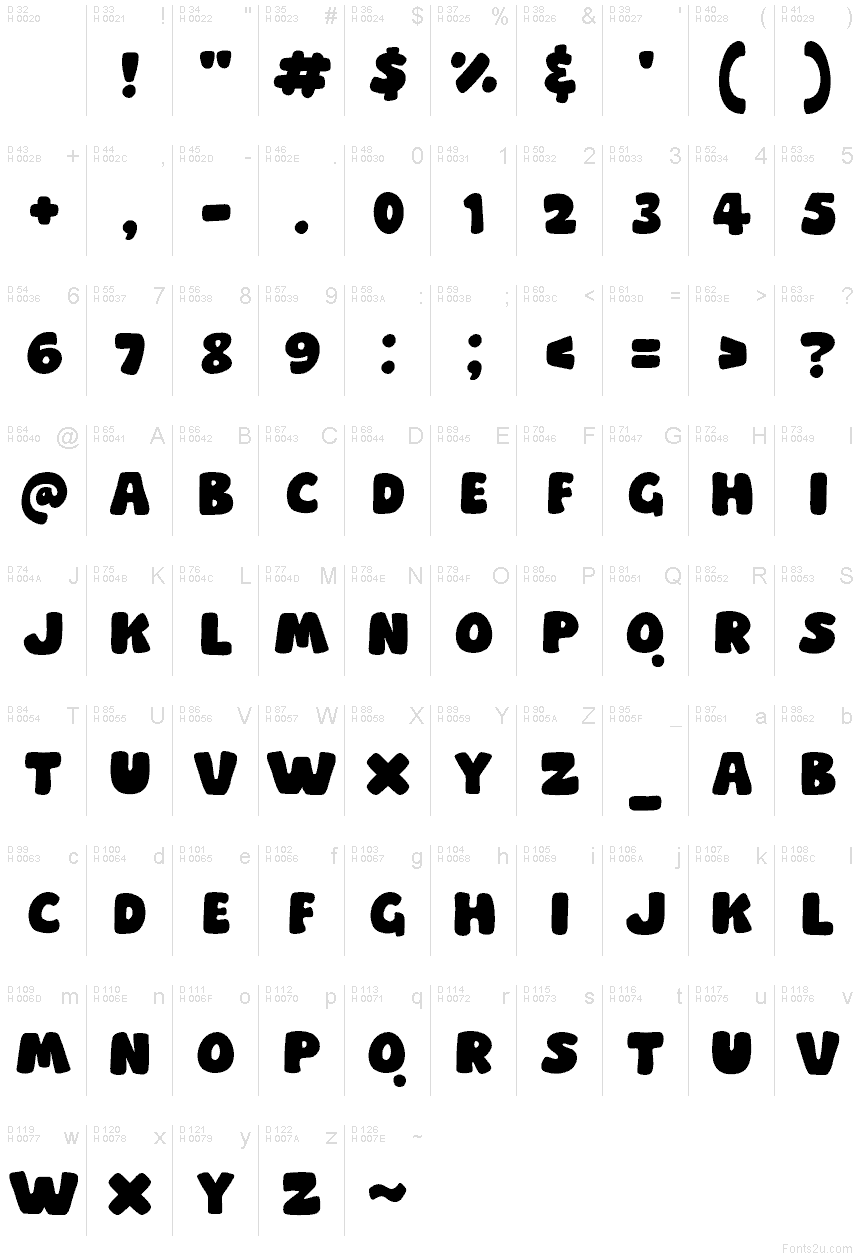
Cash Paper
Cash Paper font by MJType is a free cartoon display typeface with bold, bubble-like letters that look like they’ve been cut from thick, inky paper. The chunky shapes, tight rhythm, and slightly wobbly outlines give it a hand-drawn, comic-shop energy that jumps off the page. It feels soft and squishy yet confident, making headlines and logotypes feel friendly rather than shouty.
Using Cash Paper, you can bring instant playfulness to kids’ products, game titles, toy packaging, candy labels, fun financial content, and cheerful event posters. This free font shines when set big and bold, where its rounded forms can really breathe. Pair it with a simple, clean sans serif for body copy to keep your layouts readable while Cash Paper does the heavy lifting on attention-grabbing titles.